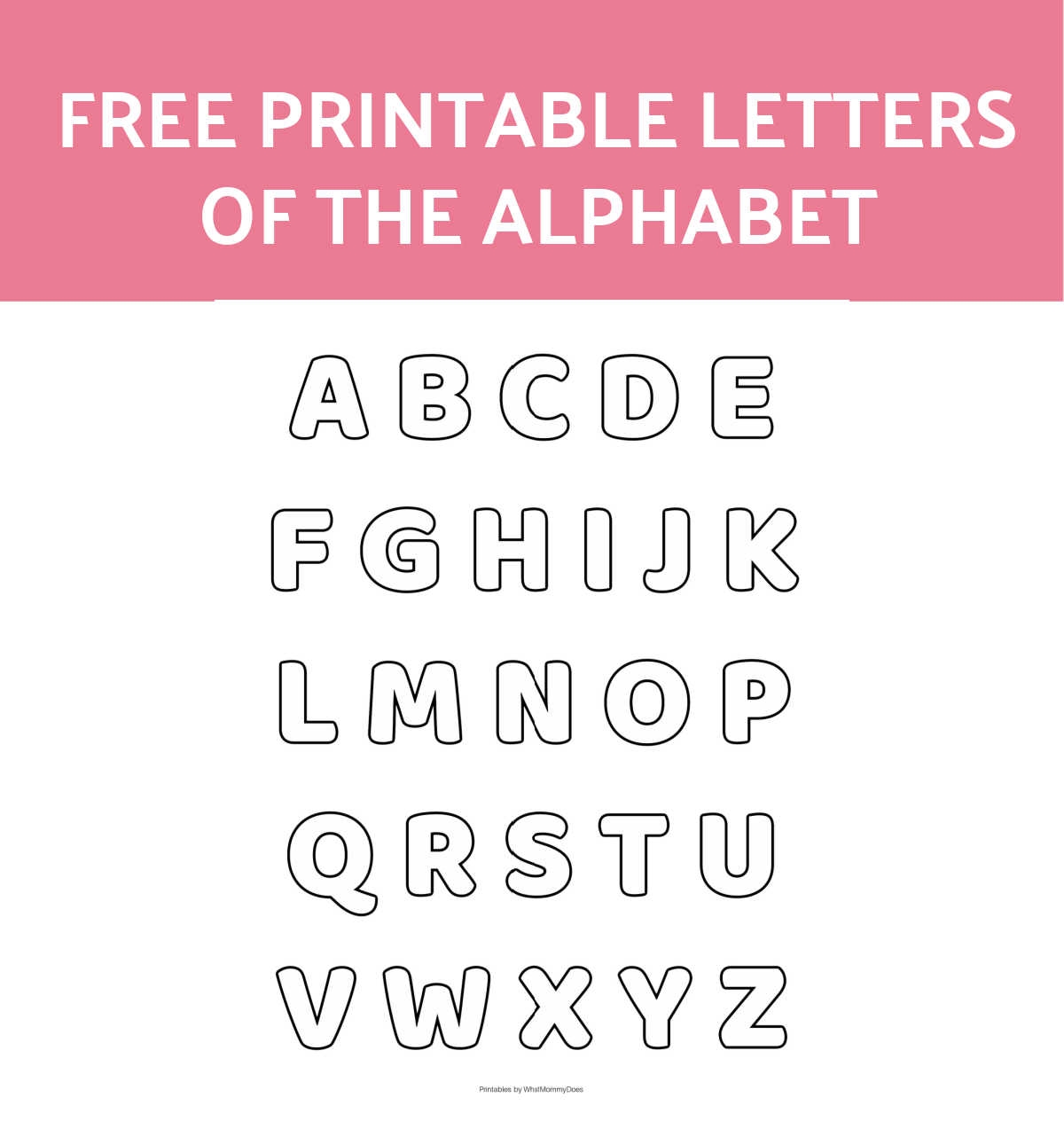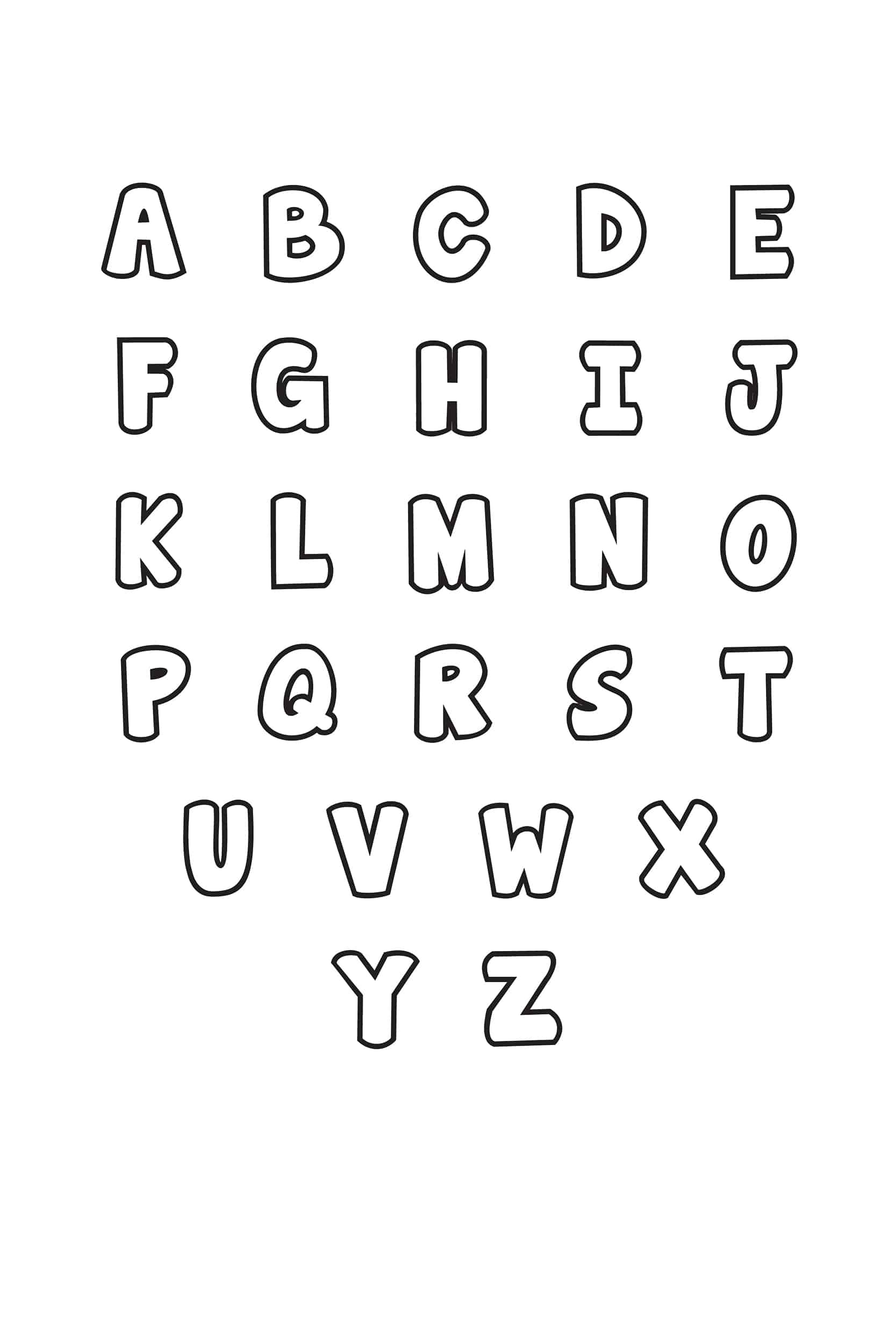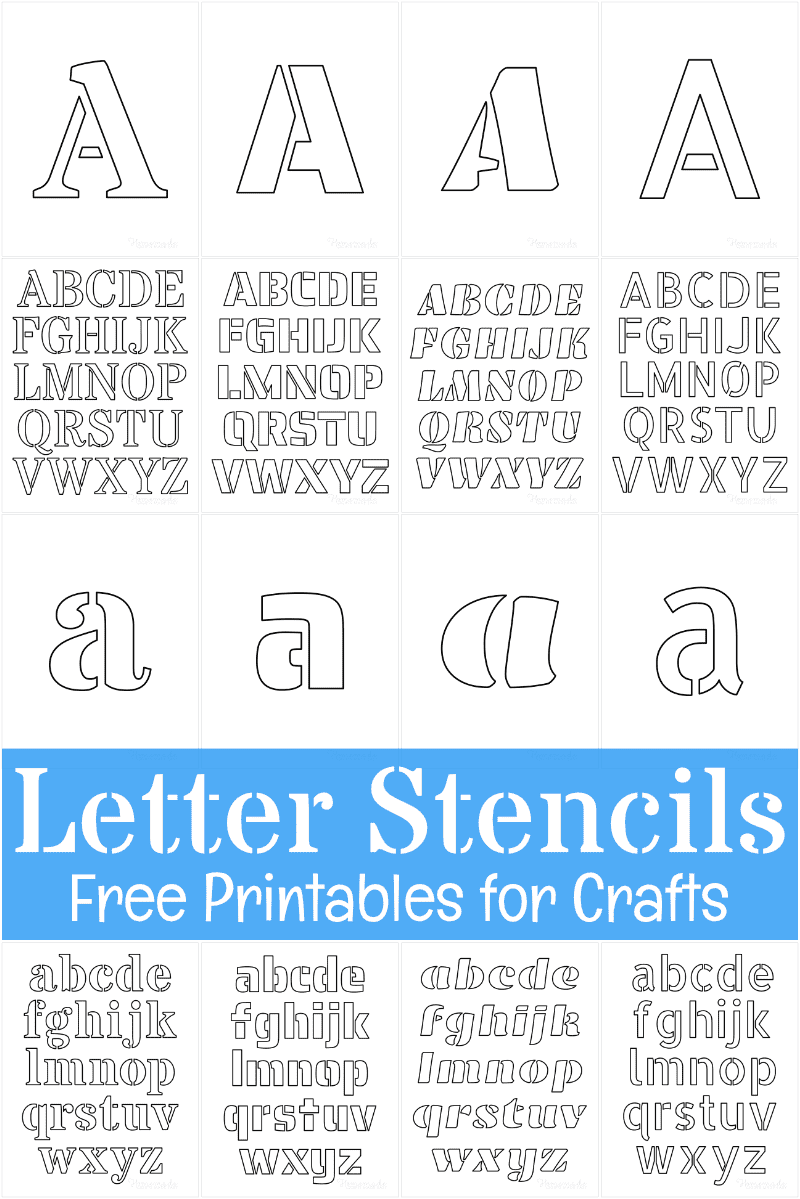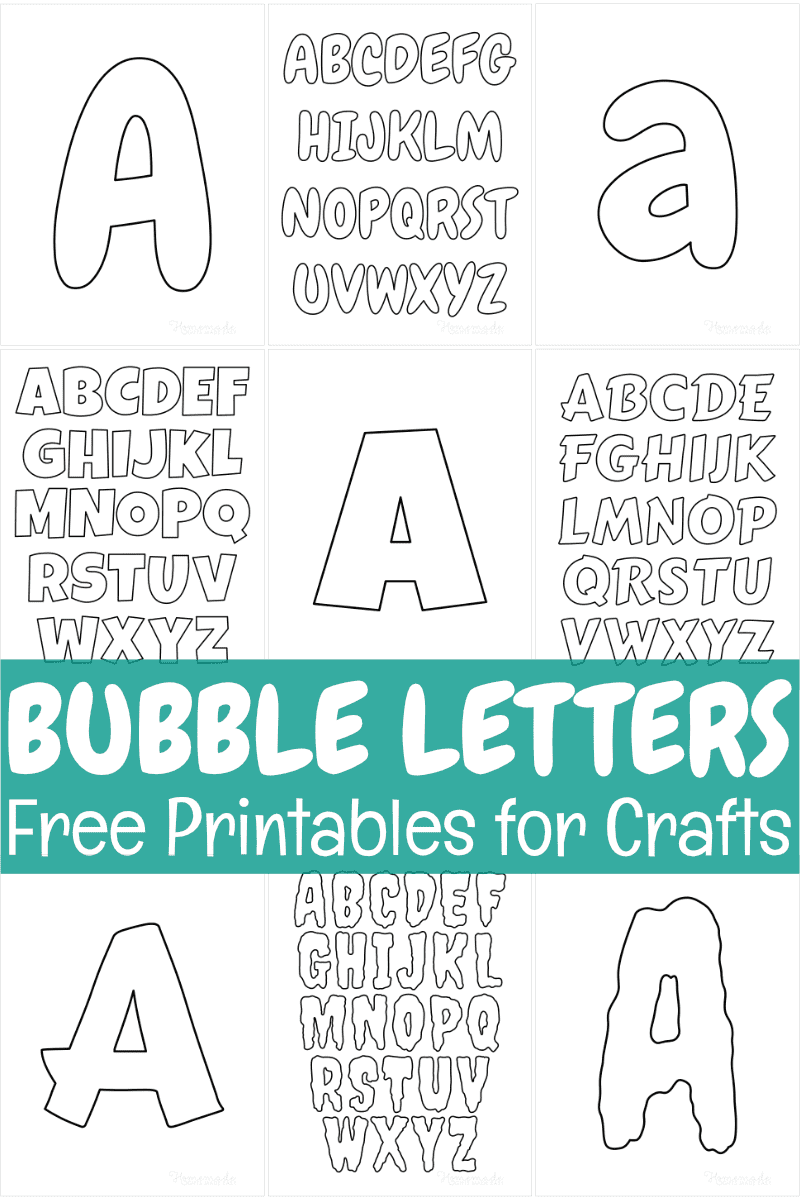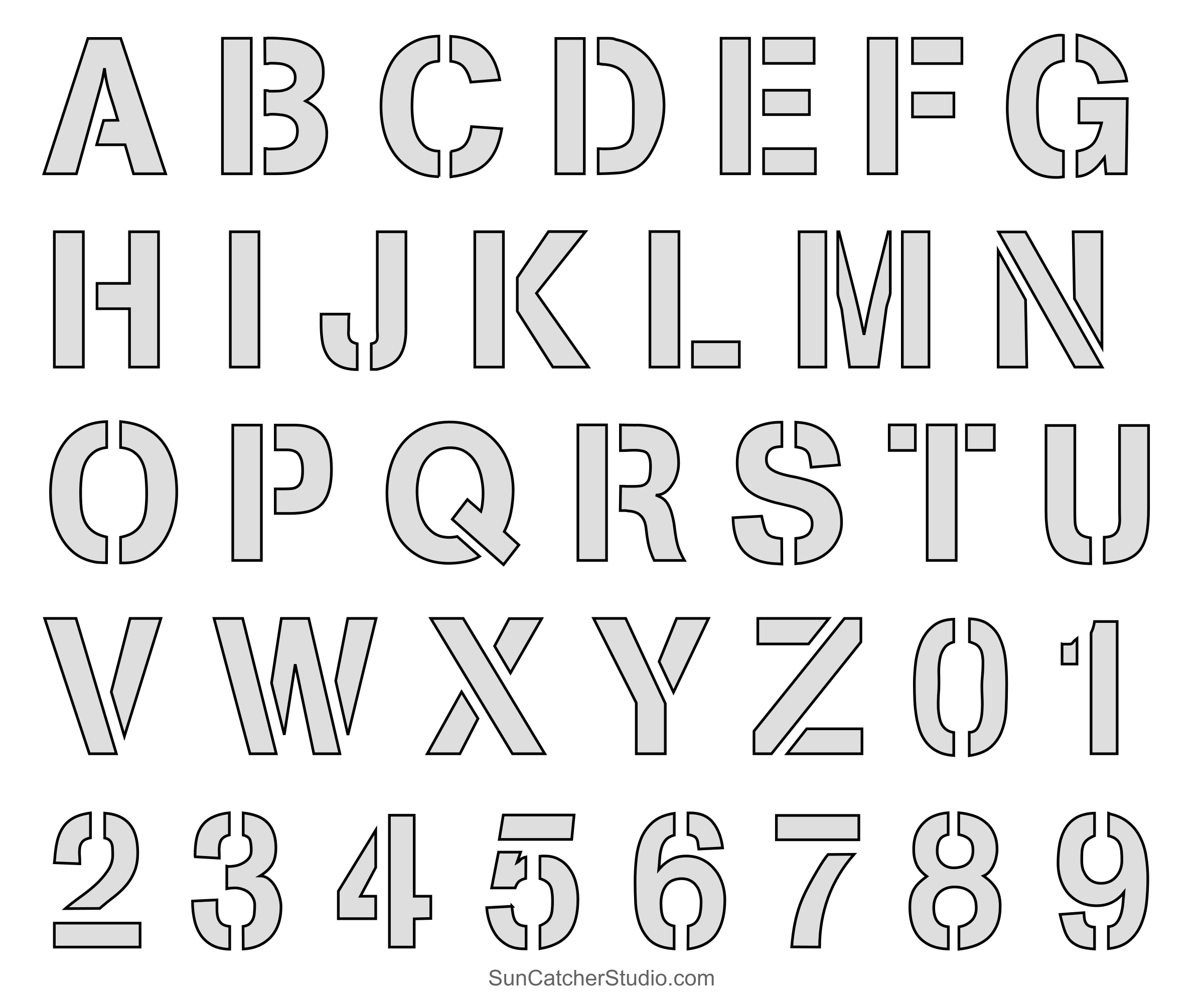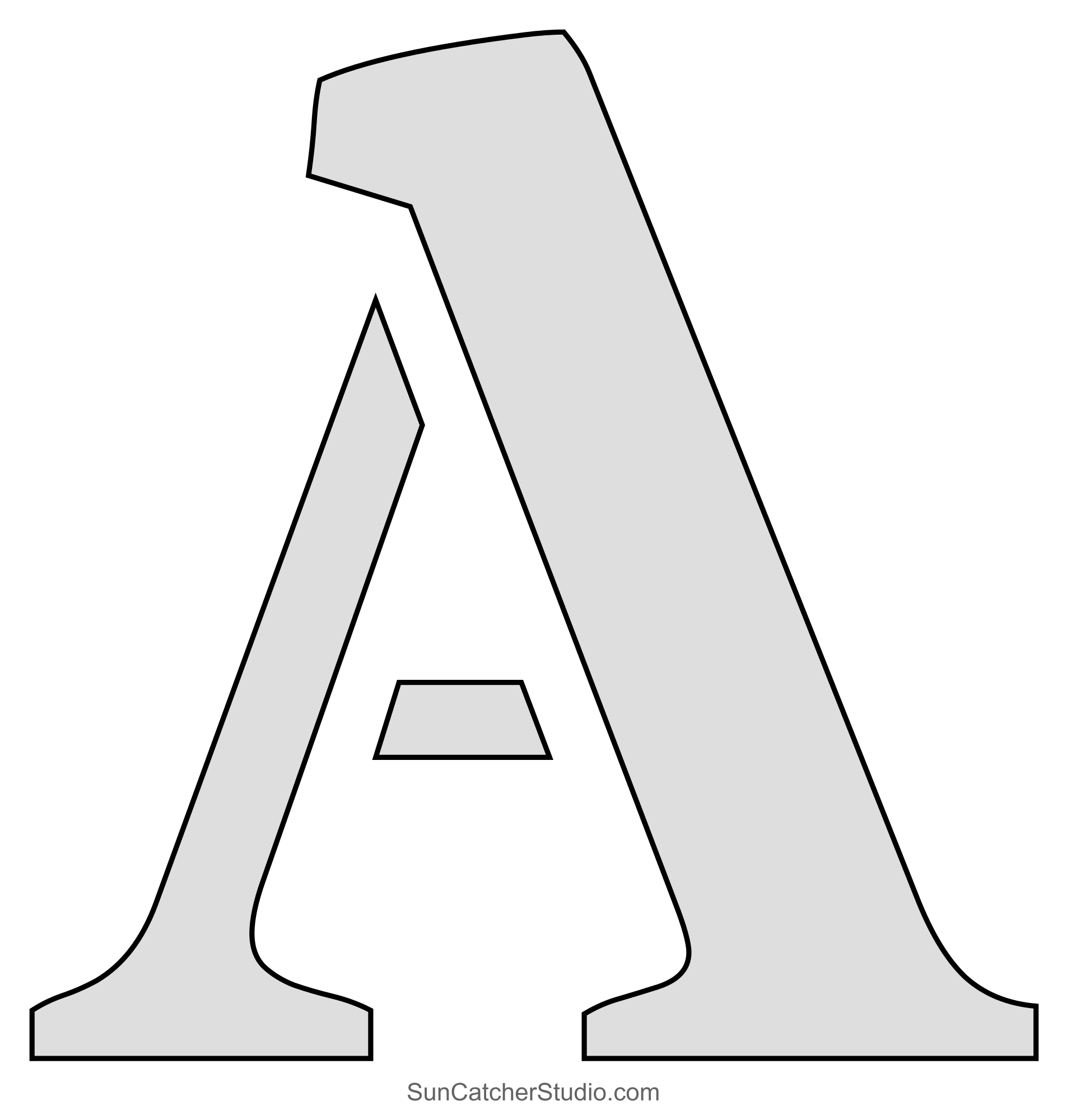
Free Printable Letter Stencils Different Fonts
Are you looking for a fun way to personalize your crafts or projects? Look no further! With free printable letter stencils in different fonts, you can easily add a unique touch to anything you create.
Whether you’re a seasoned crafter or just starting out, these stencils are perfect for adding a pop of personality to your work. From bold and modern fonts to elegant and whimsical styles, there’s something for everyone.
Get Creative with Free Printable Letter Stencils in Different Fonts
With a variety of fonts to choose from, the possibilities are endless. Mix and match styles to create eye-catching designs, or stick to one font for a cohesive look. No matter your preference, these stencils make it easy to express yourself creatively.
Simply download and print the stencils, then cut them out and use them on a wide range of surfaces. Whether you’re working on a scrapbooking project, creating custom signage, or embellishing a gift, these stencils will take your creations to the next level.
So why wait? Start exploring the world of free printable letter stencils in different fonts today. Unleash your creativity and make your projects stand out with these versatile and easy-to-use tools. Your crafts will never be the same!